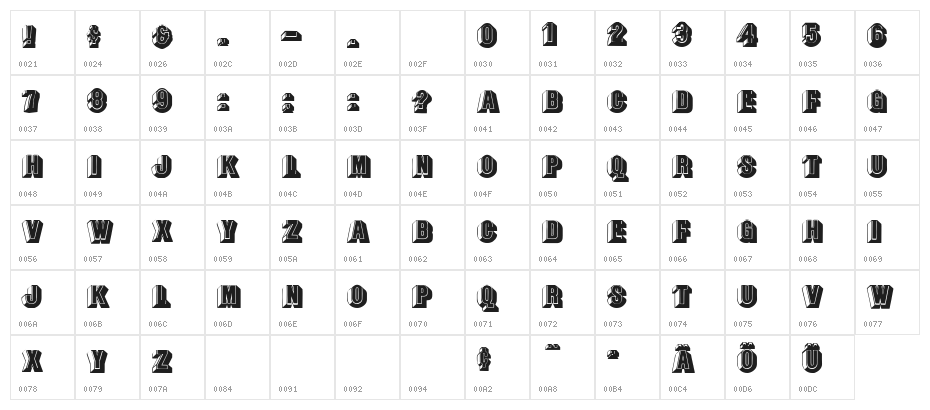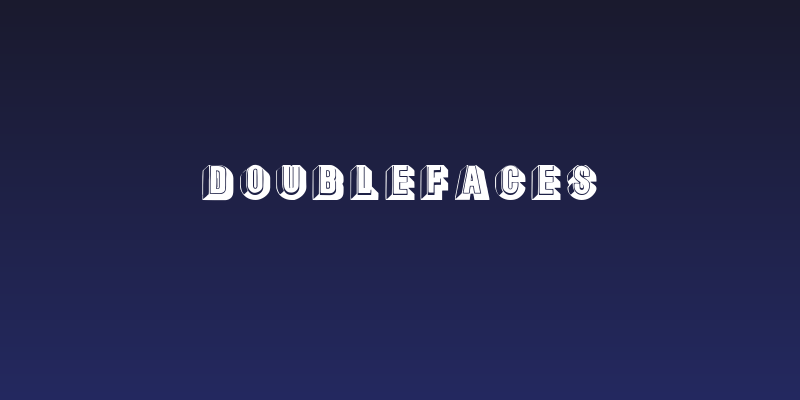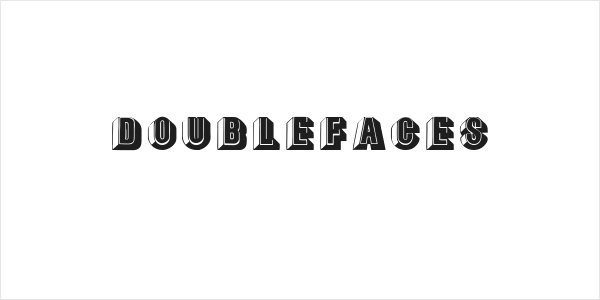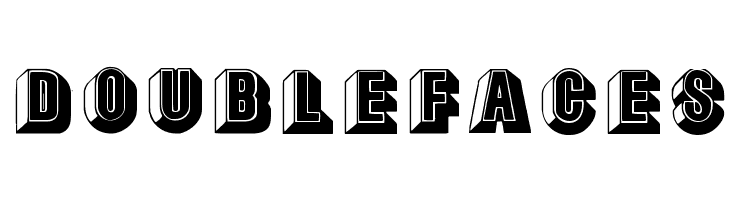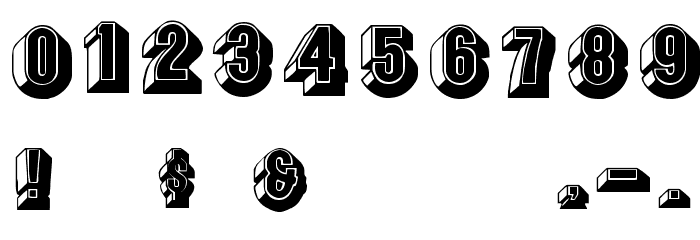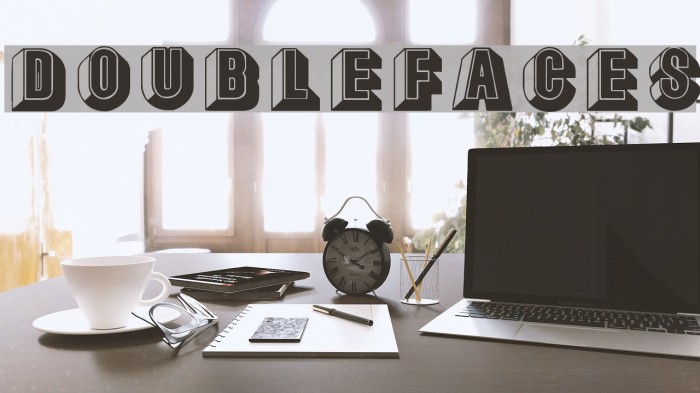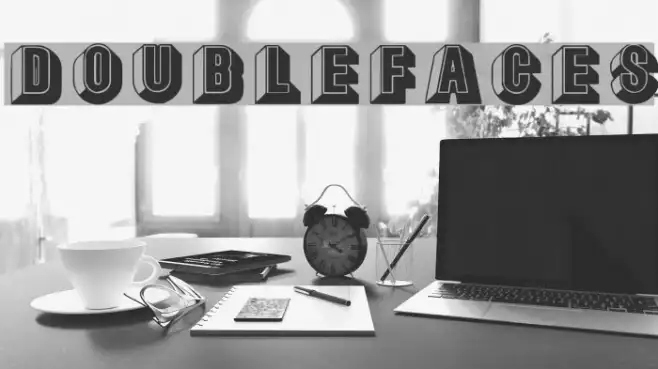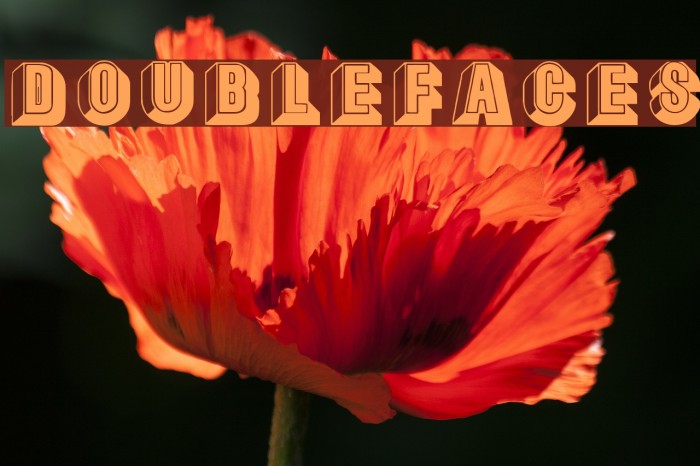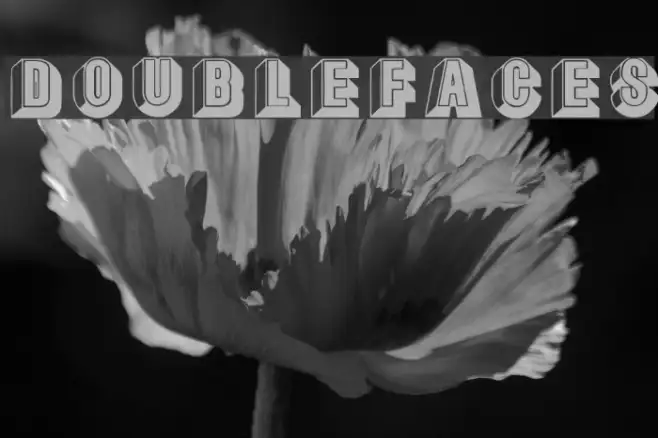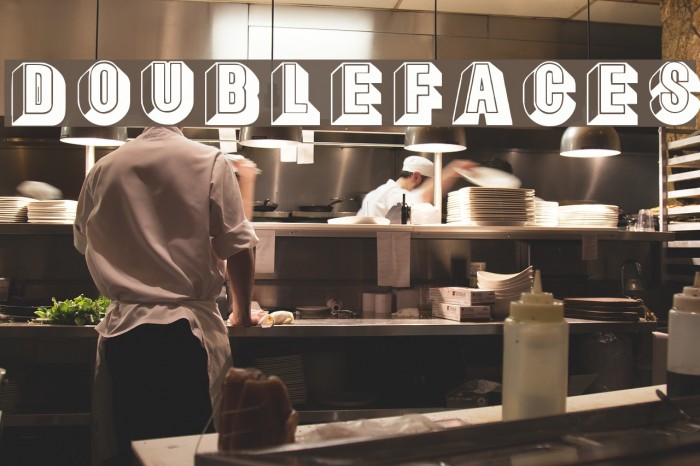
DoubleFaces Font
DoubleFaces Description
This font features a bold, three-dimensional design with a strong visual impact. The characters are outlined with a thick black shadow, giving them a striking, layered appearance. Each letter and number has a distinct, blocky form, enhancing the font's boldness and making it ideal for attention-grabbing designs. The style is consistent across uppercase, lowercase, and numerical characters, maintaining a cohesive look. Special characters are also included, matching the overall aesthetic. The font's unique 3D effect makes it stand out, suitable for projects that require a dramatic and eye-catching typeface.
| Proposed Projects | Ideal for posters, headlines, logos, and any design requiring a bold, impactful typeface. |